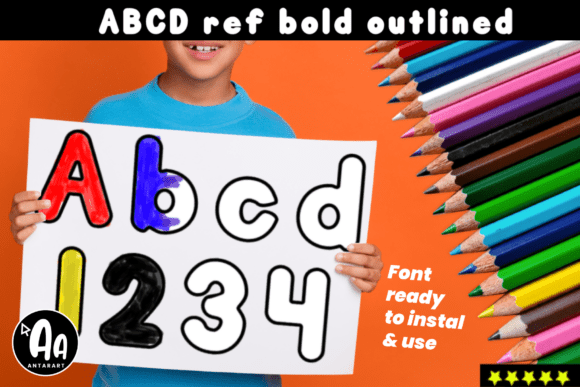
Discover the Versatility of Abcd Ref Bold Outlined Font
As a designer, I’ve had my fair share of moments where I struggled to find the perfect font for a project. I recall working on a coloring book for kids, wanting a font that was not only bold and eye-catching but also easy to read and versatile enough for various activities. That’s when I stumbled upon the Abcd Ref Bold Outlined Font. In this article, I’ll share my experience with this font, its features, and how you can make the most of it in your designs.
A Personal Design Moment: Finding the Perfect Font
I was working on a project for a client who needed a font for a preschool alphabet coloring book. The font had to be bold, outlined, and easy to read. I searched through numerous font libraries, but none seemed to fit the bill. That’s when I discovered the Abcd Ref Bold Outlined Font. Its clean, simple design and thick black outlines immediately caught my attention. I knew I had found the perfect font for the job.
• ✨ Clean and simple uppercase and lowercase letters
• ✅ Numbers 0–9 in thick black outlines
• ✅ Perfect for coloring, tracing, cutting, and hands-on letter activities
• ✅ Supports letter recognition, pre-writing practice, and fine motor development
• ✅ Versatile and suitable for various educational and creative uses
While the Abcd Ref Bold Outlined Font is an excellent choice for many projects, there are a few things to keep in mind:
• ⚠️ Limited font styles (only bold outlined)
• 🤔 May not be suitable for very small font sizes due to outline thickness
The Designer Inspiration Behind Abcd Ref Bold Outlined Font
The Abcd Ref Bold Outlined Font was designed with early learners in mind. The creator wanted to develop a font that was not only visually appealing but also functional and easy to read. The font’s clean, simple design and thick black outlines make it perfect for a range of educational and creative activities.
Q: What is the Abcd Ref Bold Outlined Font suitable for?
A: The Abcd Ref Bold Outlined Font is perfect for alphabet coloring worksheets, tracing practice, classroom decor, bulletin boards, preschool and kindergarten learning activities, name building, word wall letters, craft projects, and paper cutting.